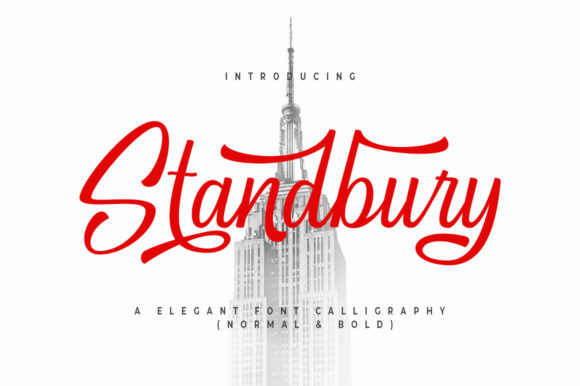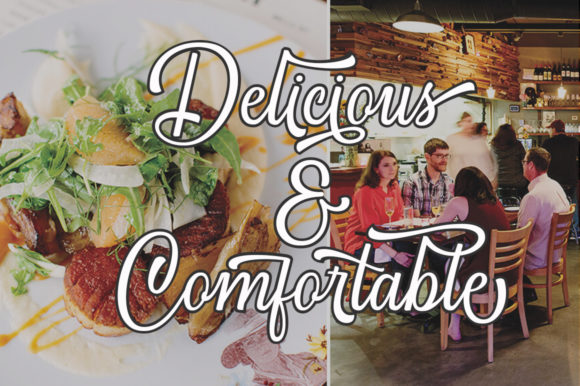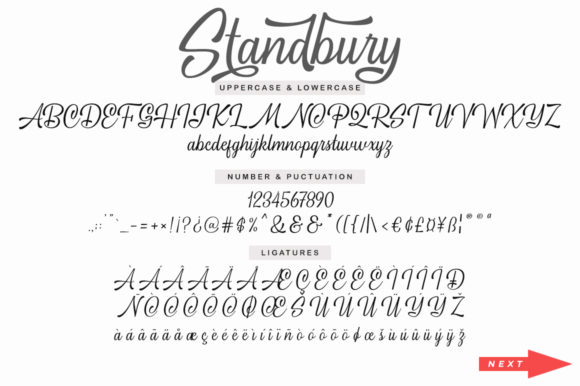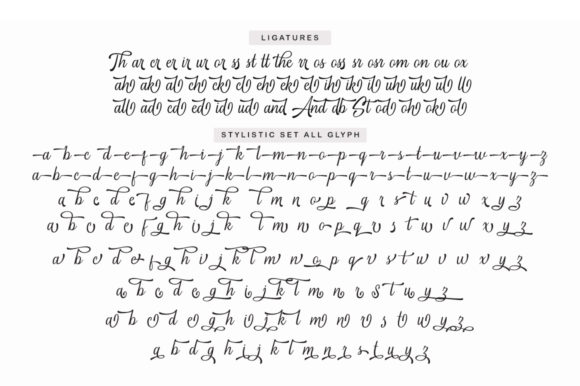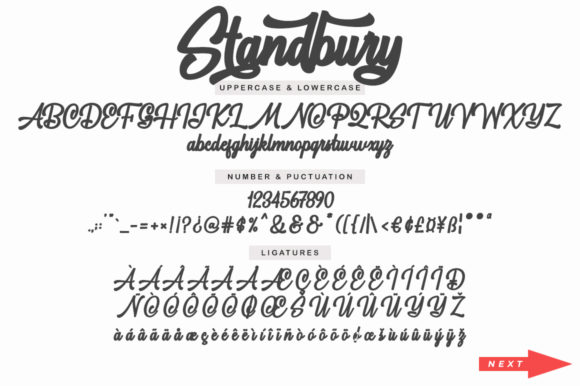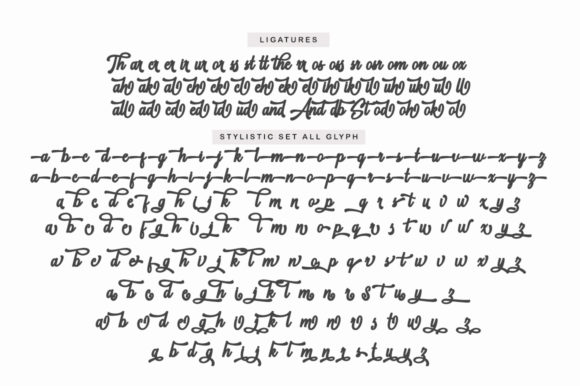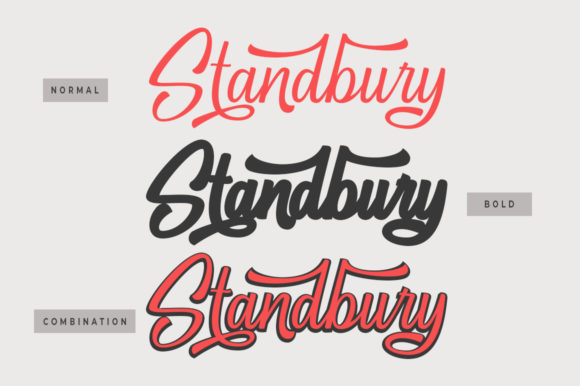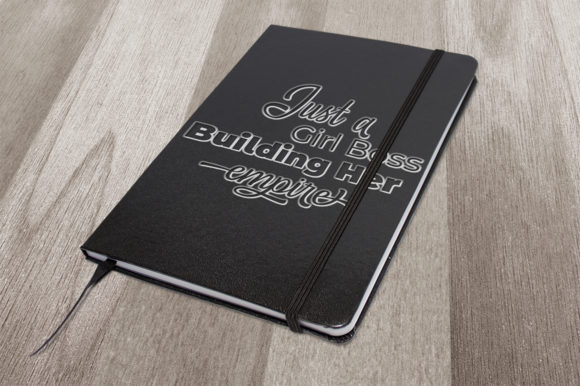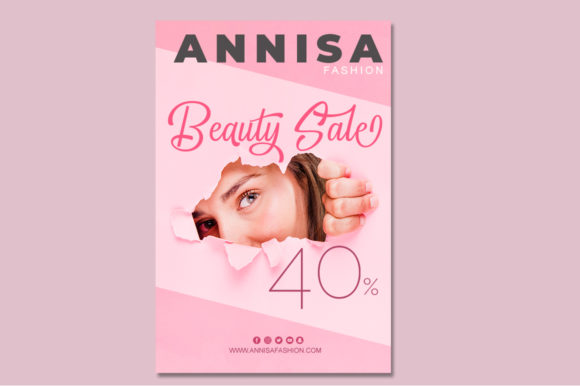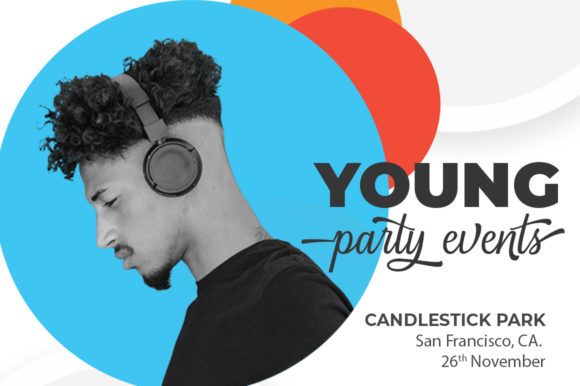
Standbury Font
About Standbury Font
Standbury updates classic calligraphy with a modern sense of style. It’s the perfect font for a wide range of DIY projects!